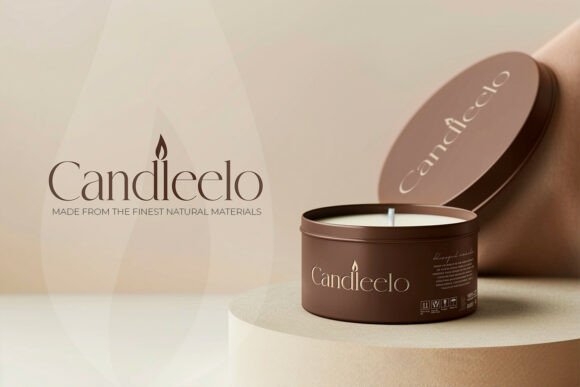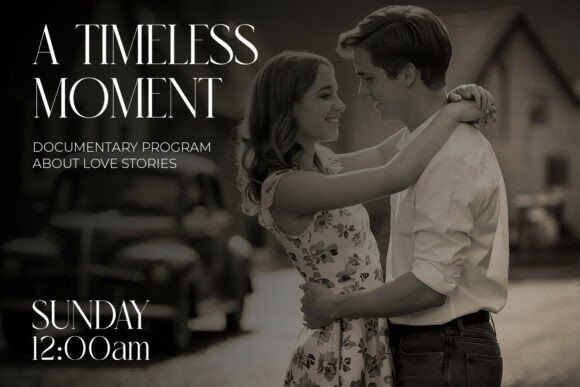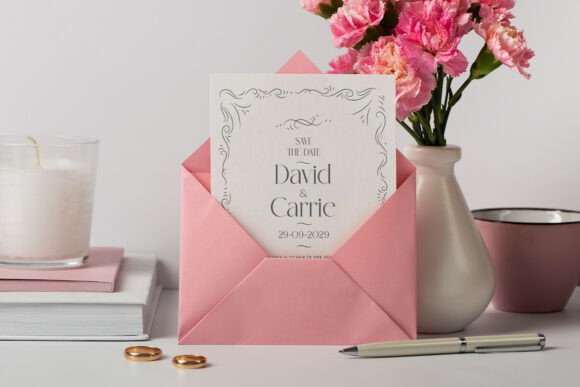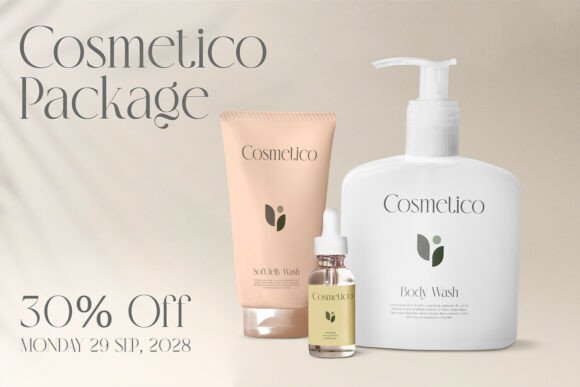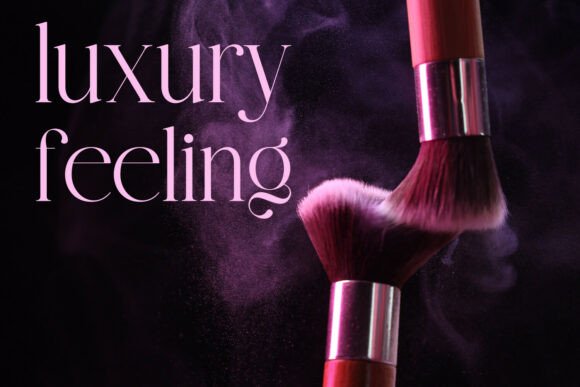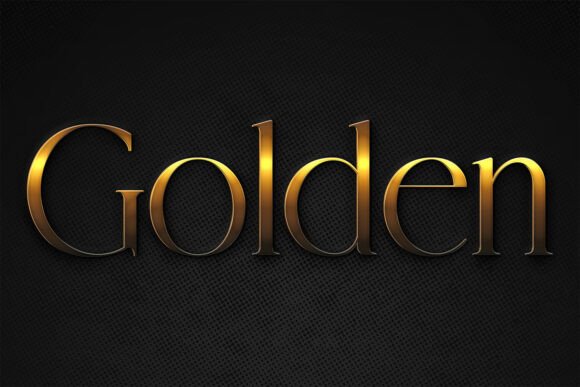
Introducing Grandeur: The Elegant Classic Serif Font for Timeless Luxury
In the world of typography, few fonts evoke the sense of luxury and sophistication that Grandeur does. This elegant classic serif font is inspired by the timeless traditions of refined print and architectural beauty, making it the perfect choice for designers seeking to convey quiet luxury in their work. With its clean lines, high-contrast stems, and sense of poise, Grandeur balances modern editorial trends with classic elegance, creating a truly unique and captivating visual experience.
The Essence of Grandeur: A Timeless Serif Font
Grandeur is more than just a font – it’s an experience. Its understated elegance allows your content to breathe, providing a sophisticated frame for your message that feels both contemporary and historic. This timeless serif font is designed for the discerning designer who values simplicity and prestige, making it the definitive choice for high-fashion magazine layouts, luxury real estate branding, and upscale boutique logos.
Design Characteristics: Clean Lines, High-Contrast Stems, and Poise
The Grandeur typeface is characterized by its clean lines, high-contrast stems, and a sense of poise that sets it apart from other serif fonts. These design elements come together to create a sense of balance and harmony, making Grandeur perfect for designs that require a touch of sophistication and elegance. Whether you’re working on a luxury brand identity, a high-end editorial project, or a bespoke website design, Grandeur provides the perfect foundation for your creative vision.
Perfect Pairings: Black-and-White Photography and Minimalist Design
Grandeur pairs exquisitely with black-and-white photography and minimalist design elements, creating a curated, high-end look that’s perfect for premium brands and luxury products. The font’s understated elegance allows the beauty of the photography or design elements to take center stage, while providing a sophisticated and refined framework for your message. This makes Grandeur an excellent choice for premium wine labels, luxury hotel signage, or as a striking header on a professional design portfolio.
Applications: Where Grandeur Shines
So, where can you use Grandeur to elevate your design work? The possibilities are endless, but here are a few ideas to get you started:
- High-fashion magazine layouts: Grandeur’s elegant serif design makes it perfect for high-fashion editorials, providing a sophisticated and refined framework for your content.
- Luxury real estate branding: Use Grandeur to create a sense of luxury and sophistication in your real estate branding, perfect for high-end property developments and bespoke real estate agencies.
- Upscale boutique logos: Grandeur’s understated elegance makes it an excellent choice for upscale boutique logos, providing a sophisticated and refined visual identity for your brand.
- Premium wine labels: Grandeur’s classic serif design pairs perfectly with the rich, luxurious feel of premium wine labels, creating a sense of sophistication and refinement.
- Luxury hotel signage: Use Grandeur to create stunning luxury hotel signage that exudes elegance and sophistication, perfect for high-end hotels and resorts.
Why Choose Grandeur?
So, why choose Grandeur for your design projects? Here are just a few reasons:
- Timeless elegance: Grandeur’s classic serif design ensures that your work will stand the test of time, remaining elegant and sophisticated for years to come.
- Versatility: Grandeur is versatile enough to be used in a wide range of design applications, from high-fashion editorials to luxury branding and beyond.
- High-end aesthetic: Grandeur’s understated elegance and refined design elements create a high-end aesthetic that’s perfect for luxury brands and premium products.
- Easy to pair: Grandeur pairs exquisitely with black-and-white photography and minimalist design elements, making it easy to create a cohesive and sophisticated visual identity.
| Font Name | Grandeur – Elegant Classic Serif Font |
| Author | OWPictures |
In conclusion, Grandeur is a truly exceptional font that offers a unique blend of timeless elegance, versatility, and high-end aesthetic. Whether you’re a designer, craftsperson, or simply someone who appreciates the art of typography, Grandeur is an excellent choice for any project that requires a touch of sophistication and refinement. With its clean lines, high-contrast stems, and sense of poise, Grandeur is the perfect choice for designers seeking to convey quiet luxury in their work.